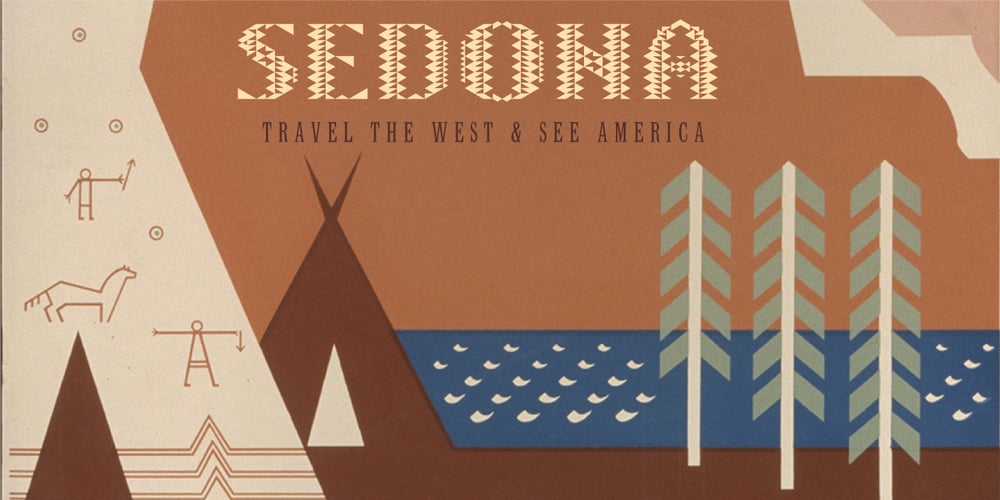
Sedona Font Family was designed by Jeff Kahn and published by Jeff Kahn. Sedona contains 1 styles and family package options. Sedona is a quirky, all capitals, display font that evokes the American West, Native Americana, vacations, travel, campgrounds, rustic lodges, needle point, Christmas, holidays, Arts and Crafts movement, quilts, tiles, and alpine resorts. It is based on an isometric grid and individual shapes that conform to the grid’s structure. Each letter or glyph is made up of numerous triangular shapes. The letters have gaps of space that create a dynamic texture. Our mind connects the triangles to complete the letter and recognize the familiar letterform. Sedona will create a unique identity for book cover titles, editorial headings, packaging, logotypes and signs. Create multicolored letters by selecting individual shapes within each letter and apply various colors. Simply convert type in Adobe Illustrator or InDesign with these two steps: 1. “Creating Outlines”, 2. “Release Compound Path”. You may also want to “Ungroup” the letters. Great care was taken to align the shapes perfectly. There are no overlapping or misaligned shapes. Sedona includes punctuation, numerals, and basic math glyphs.You will find some additional and alternate glyphs in the “Glyph Palette”. Sedona does not include a lowercase or diacritics for foreign languages. You may type in lowercase but the letters will appear as uppercase.